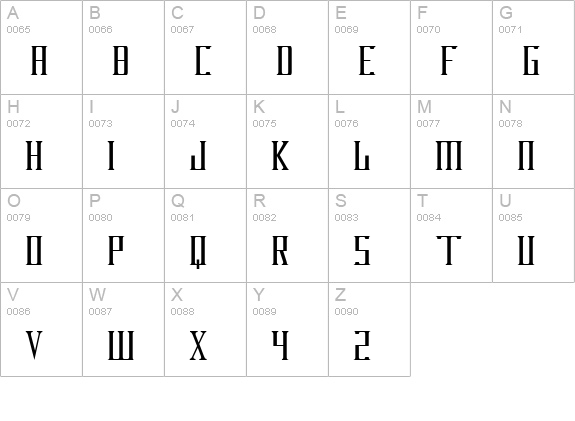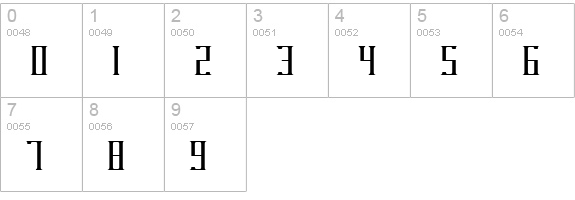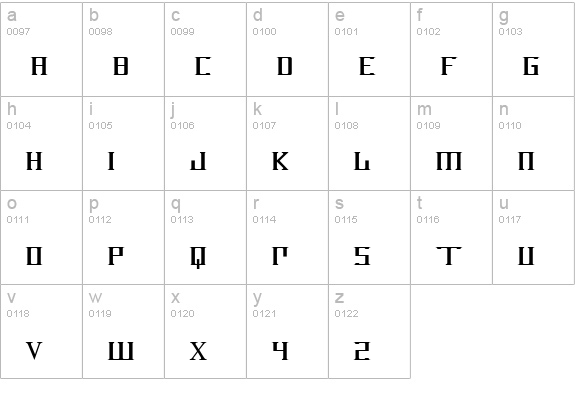
DarkWind Condensed is a distinctive, condensed-width variant in the DarkWind typeface family \xE2\x80\x94 well suited to design and typography projects.
DarkWind Condensed font is a sleek and modern typeface that exudes elegance and sophistication. Its condensed design makes it perfect for creating eye-catching headlines, logos, and branding materials. The sharp lines and bold strokes give this font a powerful and dynamic presence, making it ideal for conveying a sense of strength and authority. What sets DarkWind Condensed font apart is not only its striking appearance but also the fact that it is available for free download at FontsMarket.com. This means that designers and creators looking to add a touch of boldness to their projects can easily access this high-quality font without any cost. Whether you're working on a print design, website, or any other creative project, DarkWind Condensed font is sure to make a lasting impression. Download it today and unleash the power of this captivating typeface in your work.